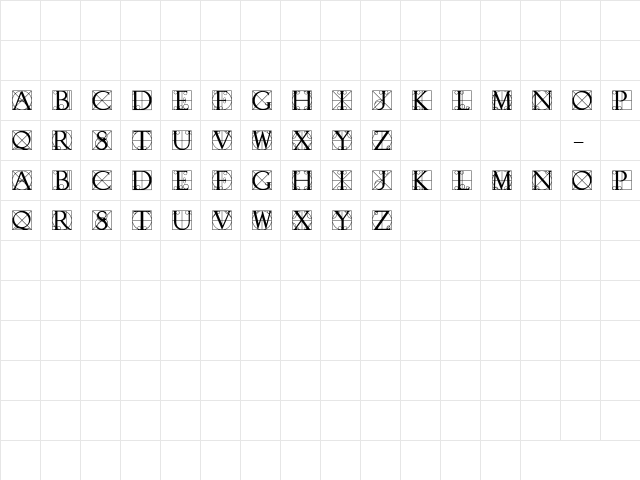
GE Typography Caps Regular
Design Context for GE Typography Caps Typeface
GE Typography Caps offers clean, dependable letterforms without strong stylistic allegiance, making it a practical choice for designers who need flexibility.